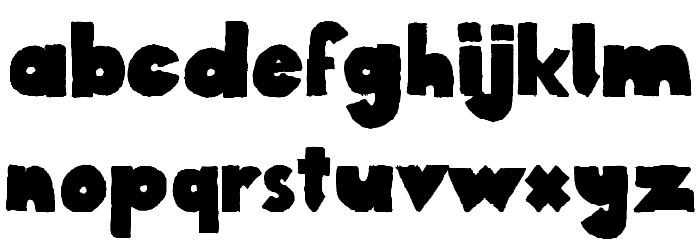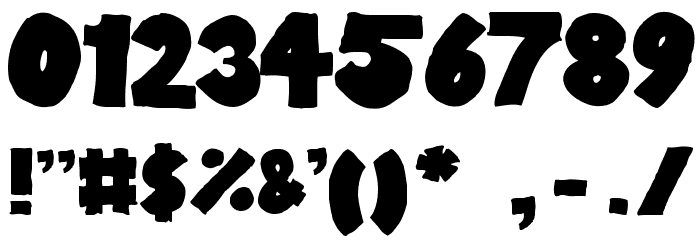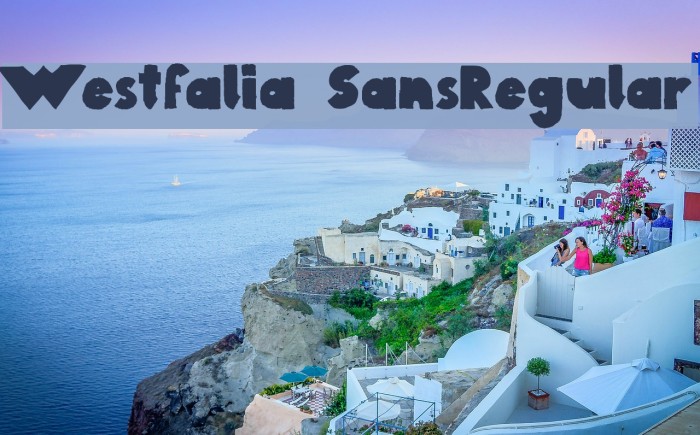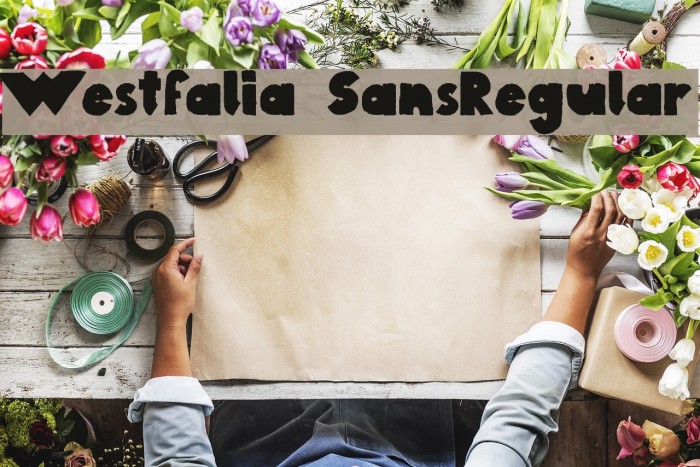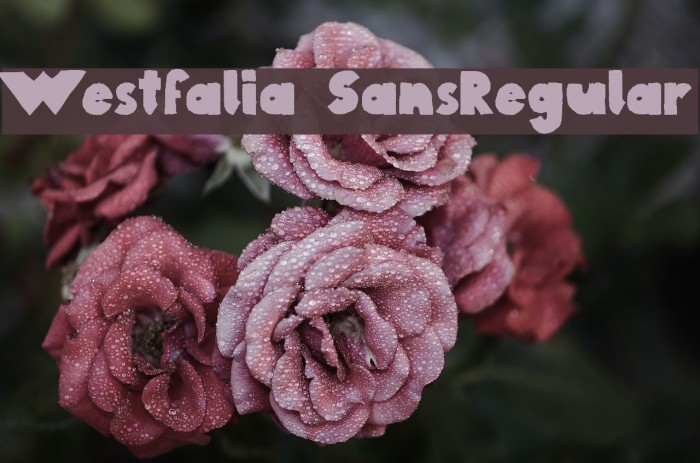
Westfalia SansRegular Font
This font features a bold and playful design with irregular, hand-drawn characteristics. The letters have a chunky, uneven appearance, giving them a whimsical and artistic feel. The strokes are thick and vary in width, adding to the font's unique personality. The overall style is informal and expressive, making it suitable for creative and fun projects. The uppercase and lowercase letters maintain a consistent style, while the numbers and special characters complement the overall design with their bold and quirky shapes.
A bold, playful font with a hand-drawn, irregular style.
- Proposed Projects: Ideal for children's books, playful branding, posters, and creative design projects.
- Use Case: Logos, Posters, Creative projects